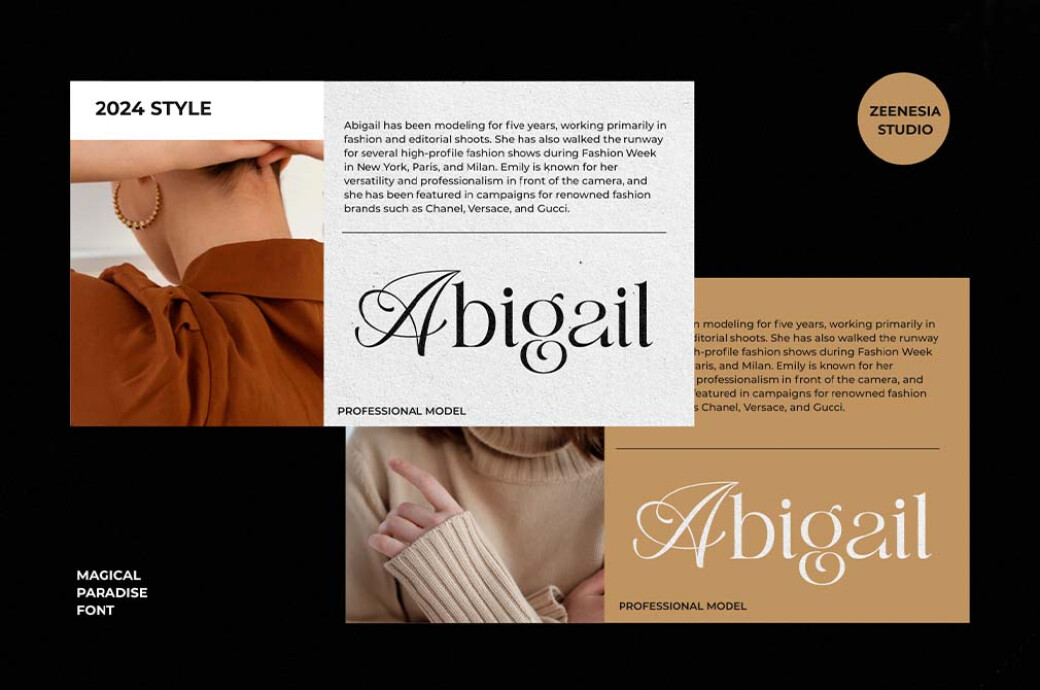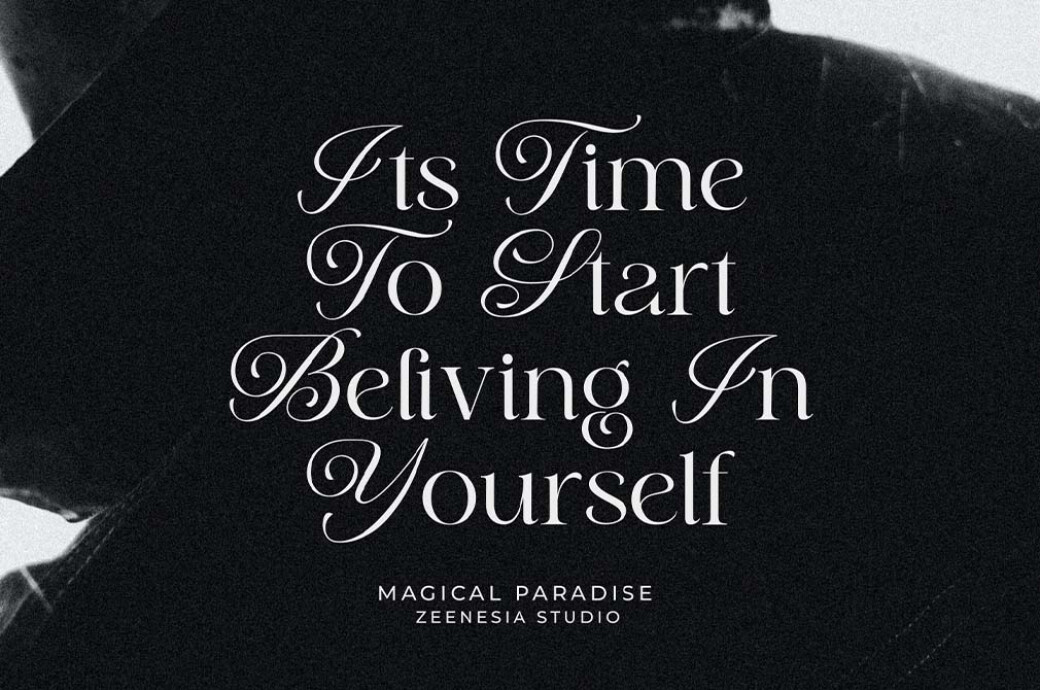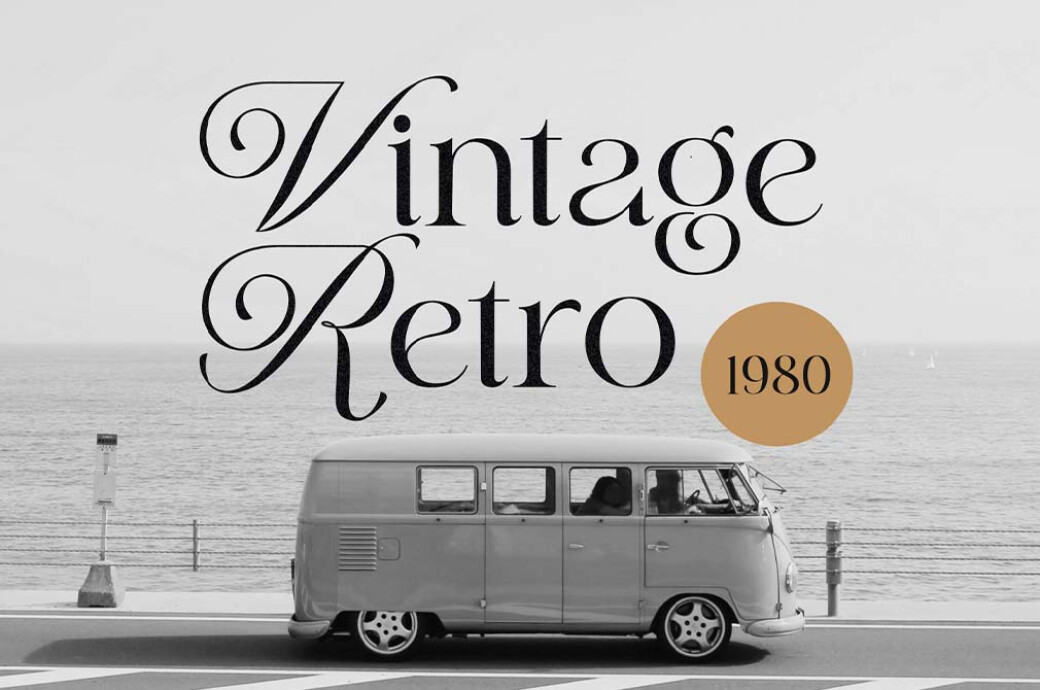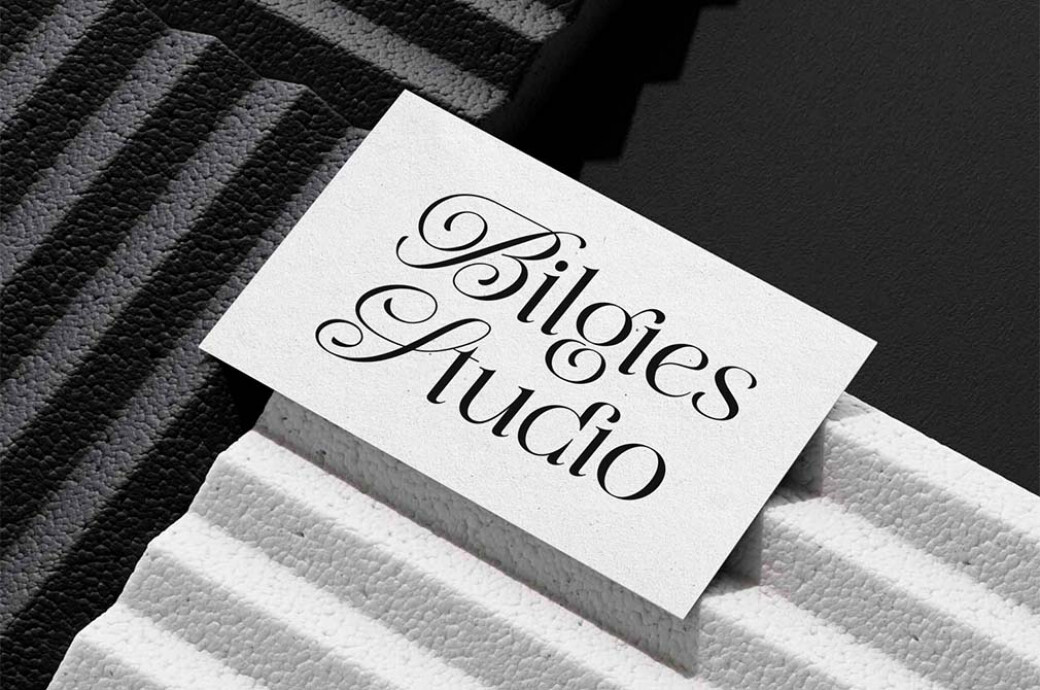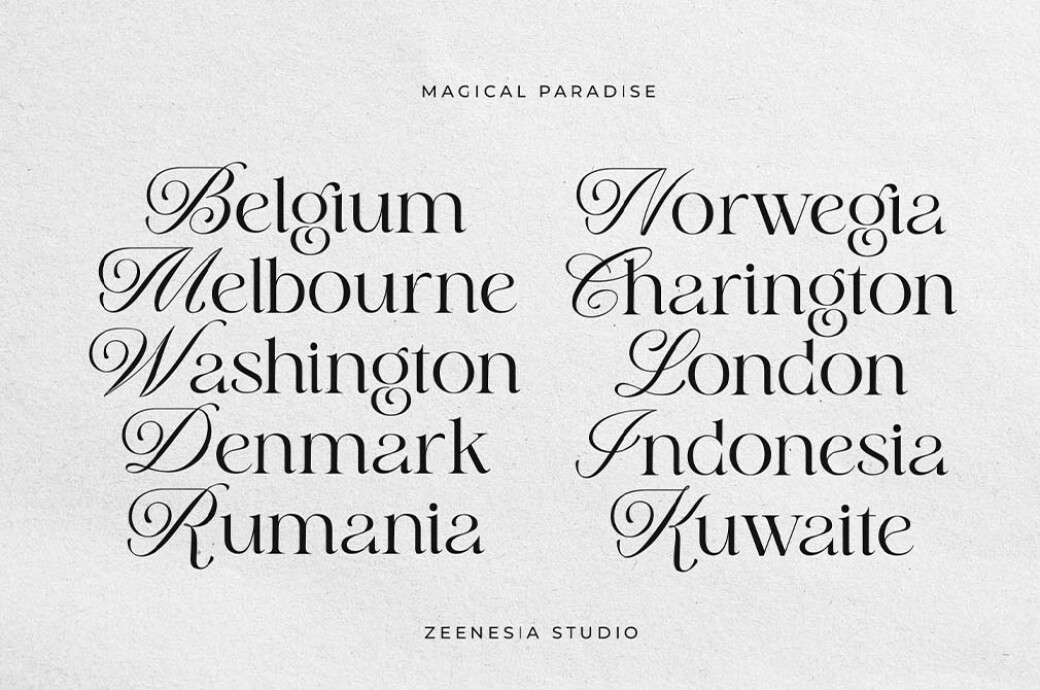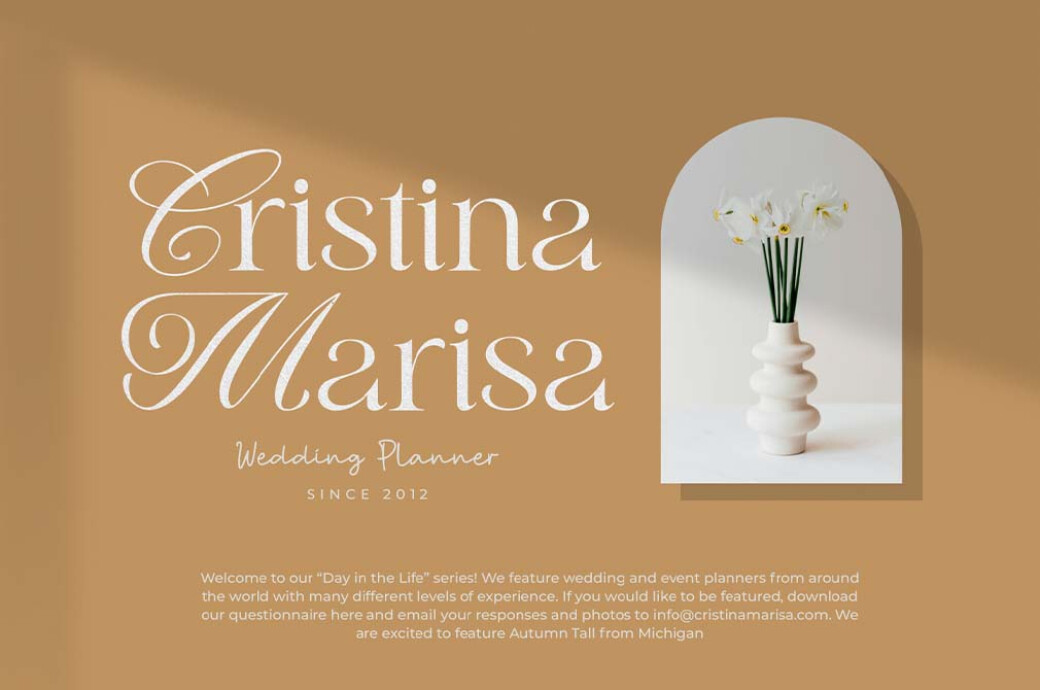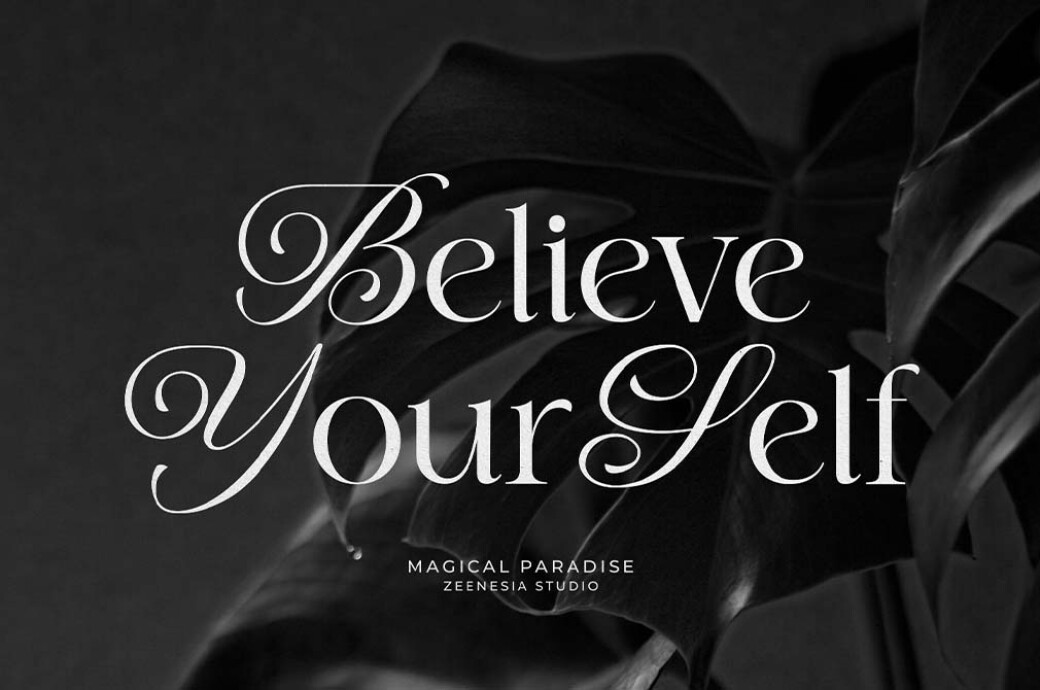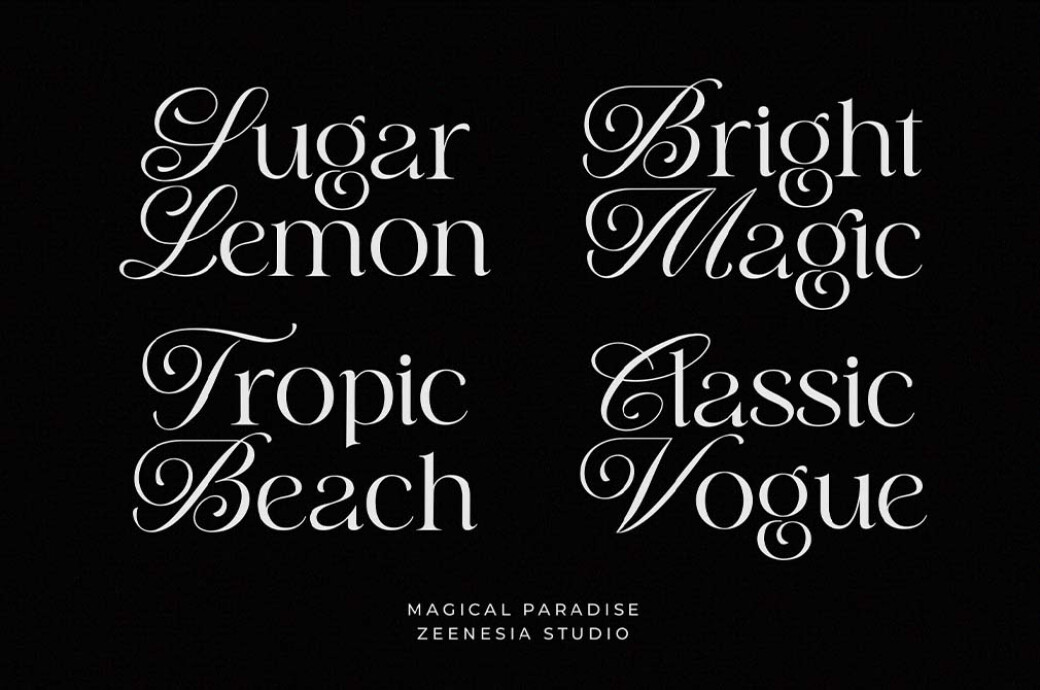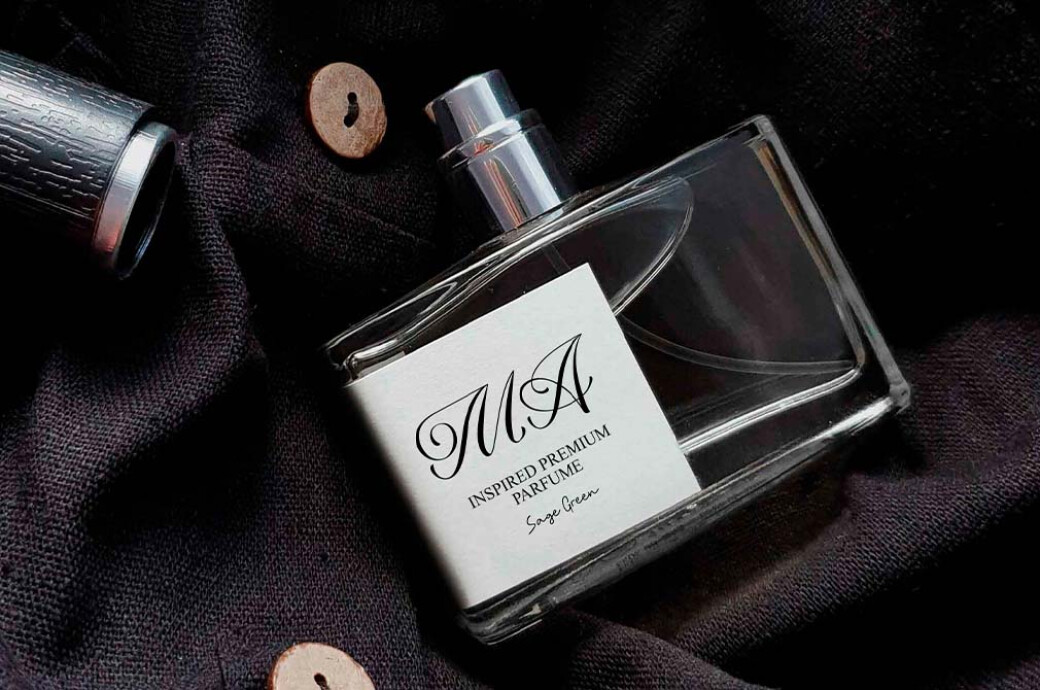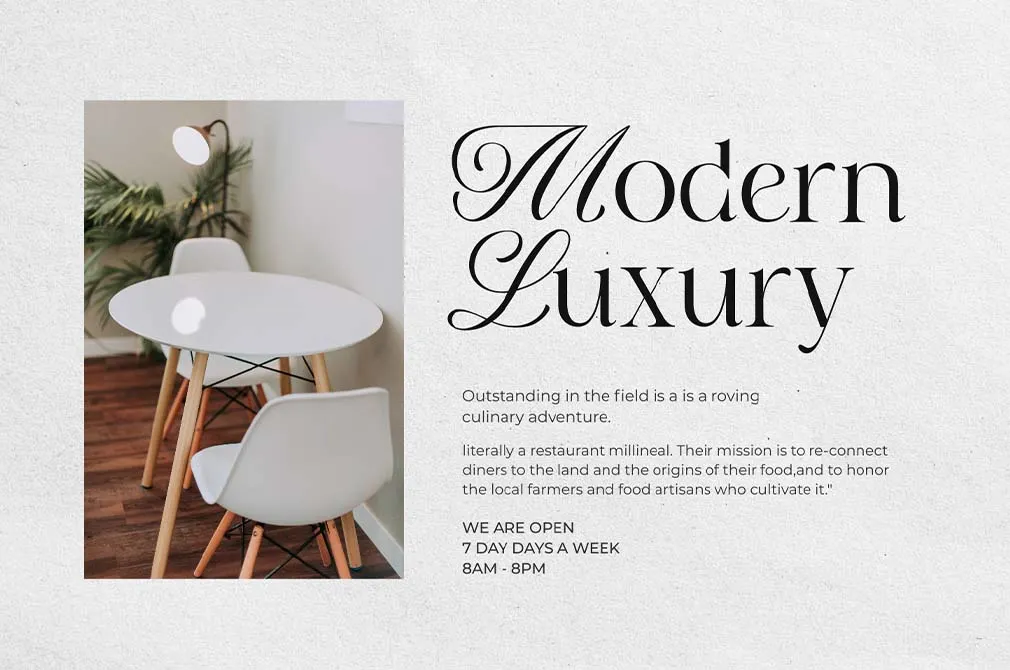
Magical Paradise — Modern Serif Typeface
Magical Paradise
Let us invite you to the enchanting world of Magical Paradise, where typography turns your designs into whimsical tessellate. It will wrap your message into the most delicate tracery to add sophistication to any word.
This modern display font seamlessly blends serif and script styles, creating a unique look that's both contemporary and timeless. Ideal for editorial projects, logo designs, clothing branding, product packaging, and magazine headers, it also adds a stylish flair as a text overlay on any background image. The file includes a standard set of glyphs: upper and lower case, numbers, and punctuation. If you want to send your magical designs globally — no problem at all, as this font has multilingual support.